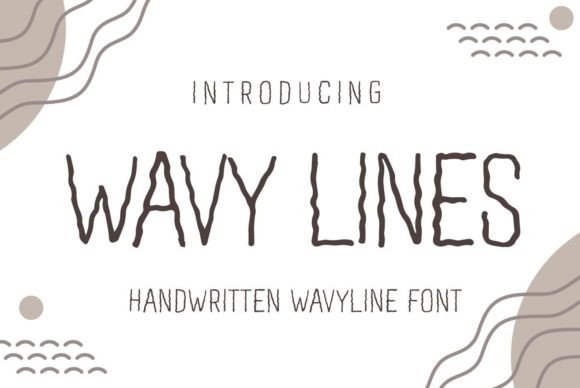
Welcome to the realm of Wavy Lines, a captivating display font designed to ignite your creativity and leave an indelible mark on your designs. This delicate and well-rounded handwritten font is a masterpiece crafted with meticulous attention to detail, allowing your words to dance across the page with enchanting elegance.
Unleash your imagination and embrace the boundless possibilities that Wavy Lines presents. Perfect for a myriad of crafty projects, this font will add a touch of artistry and charm to your wedding invitations, birthday cards, personal branding endeavors, and elegant logos. Witness your designs transform into works of art, captivating the hearts of all who lay their eyes upon them.
Wavy Lines is not merely a font; it's an experience. Its fluidity and grace will effortlessly elevate your creations, making them stand out from the mundane and ordinary. Immerse yourself in the world of Wavy Lines and let your designs take on a life of their own, captivating and enchanting all who encounter them.
With Wavy Lines, you have the power to create designs that speak to the soul. Whether you're crafting heartfelt wedding invitations that set the tone for a magical celebration, or designing birthday cards that exude warmth and joy, this font will be your steadfast companion. Wavy Lines is the perfect choice for those seeking an authentic and personal touch, a font that reflects their unique style and vision.
So, embark on this creative journey with Wavy Lines and discover a world of beauty and inspiration. Transform your designs into captivating expressions of art, leaving a lasting impression on all who behold them. Welcome to the world of Wavy Lines, where imagination knows no bounds and creativity reigns supreme.